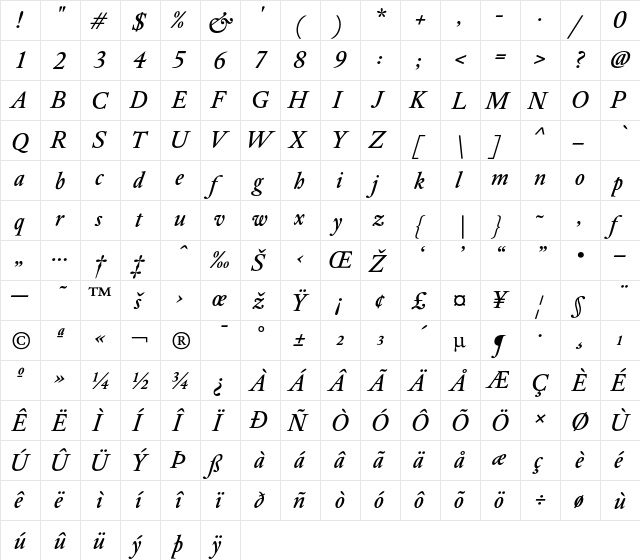
DTLElzevirTMedium Italic Font Preview
DTLElzevirTMedium Italic
Design Context for DTLElzevirTMedium Typeface
DTLElzevirTMedium offers clean, dependable letterforms without strong stylistic allegiance, making it a practical choice for designers who need flexibility. The slanted form adds forward momentum and visual energy.
Pro Tip: Use DTLElzevirTMedium for emphasis, pull quotes, and subheadings where its slanted energy can add rhythm to the layout.